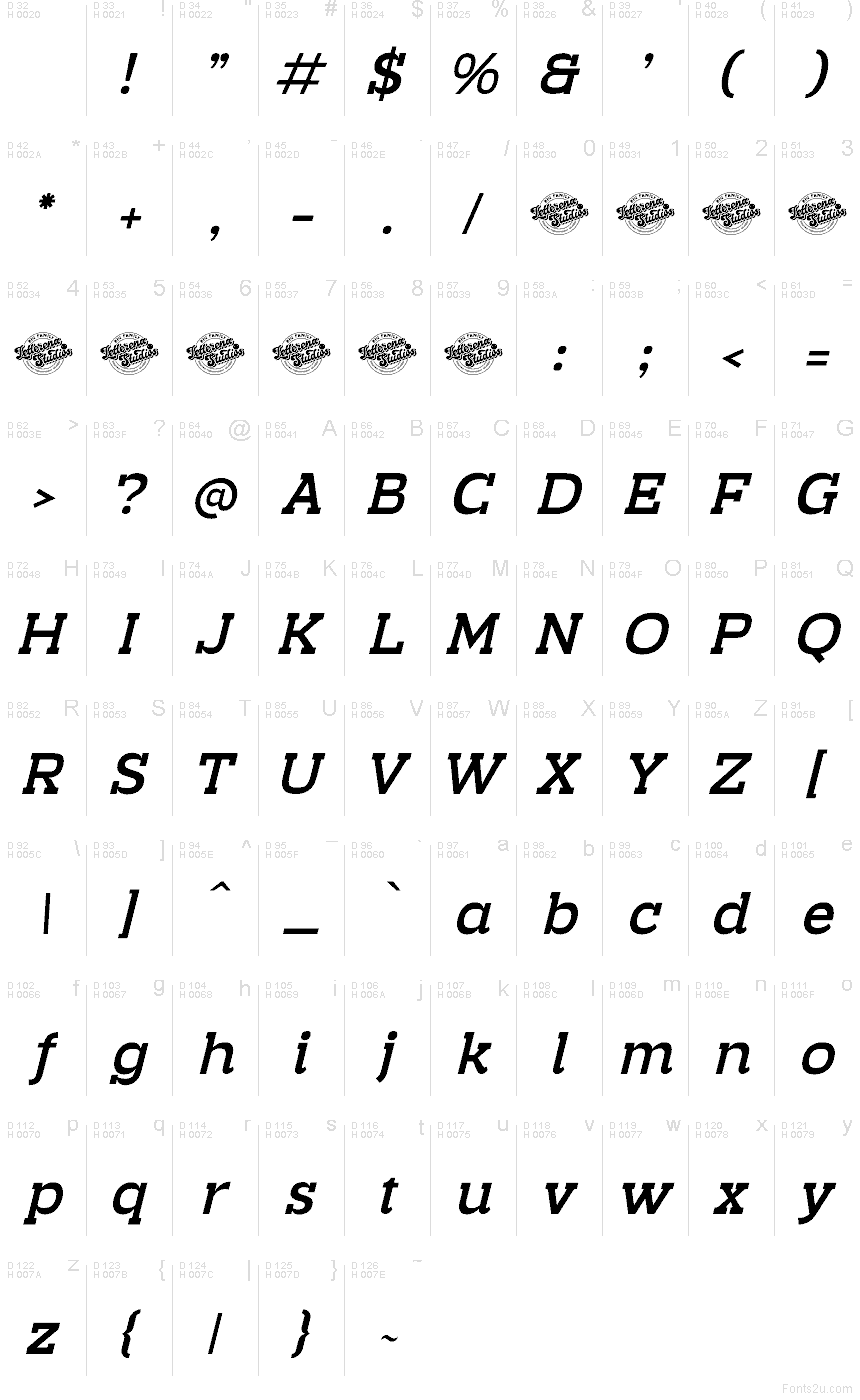
Burgela DEMO VERSION Italic
Burgela Italic font by Letterena Studios is a free serif typeface that leans into a bold, slanted rhythm with tightly controlled curves and sturdy strokes. The letters feel confident and slightly compressed, giving every word a strong forward motion while maintaining smooth, inky elegance that reads clearly at a glance.
Using Burgela Italic, headlines and logos gain a muscular, editorial edge that works beautifully for branding, posters, book covers, product packaging, and striking social media graphics. This free font shines when set large, then paired with a clean, unobtrusive sans serif for supporting text to let Burgela carry the drama.